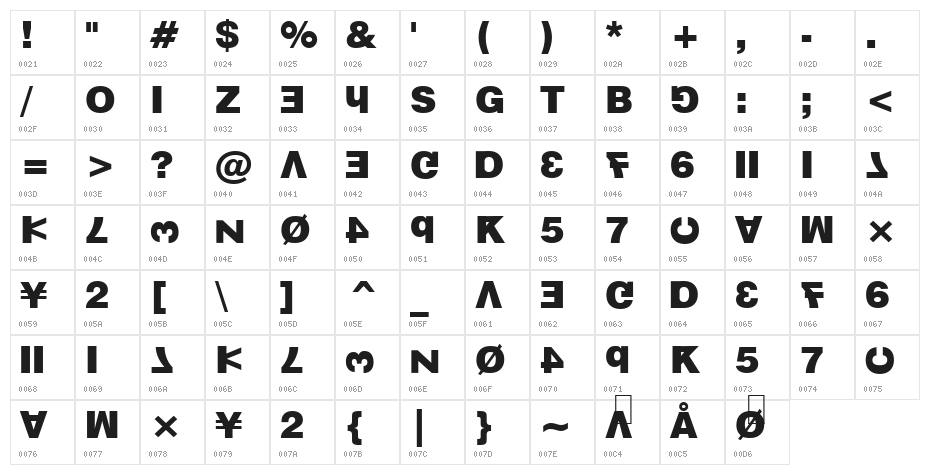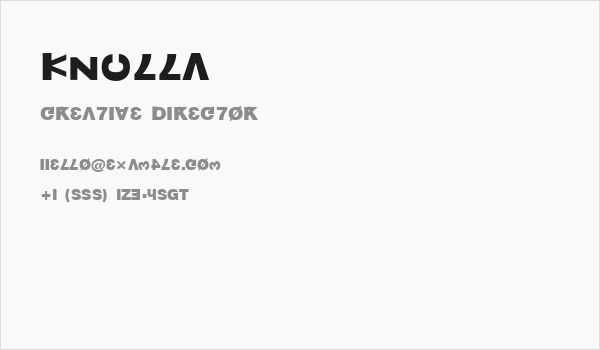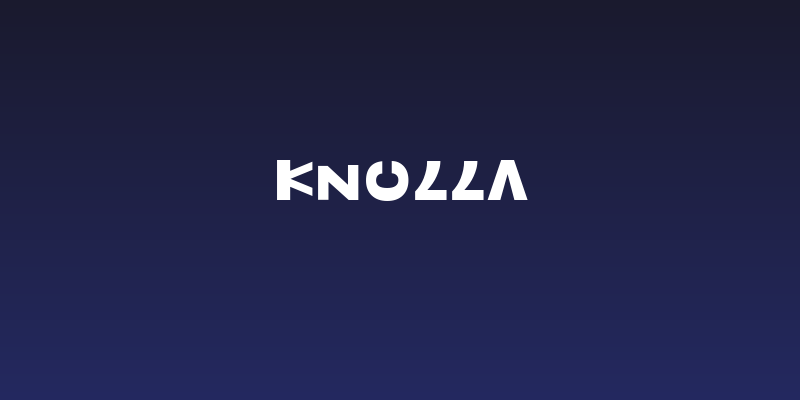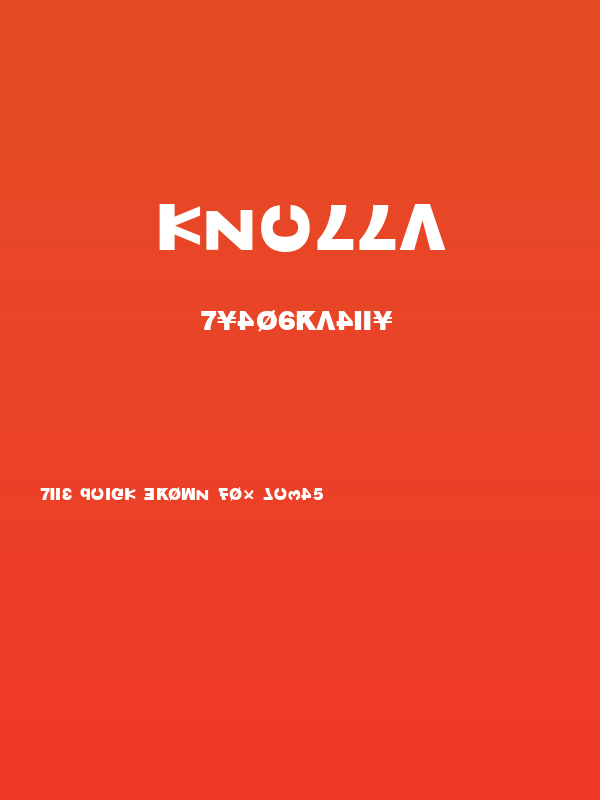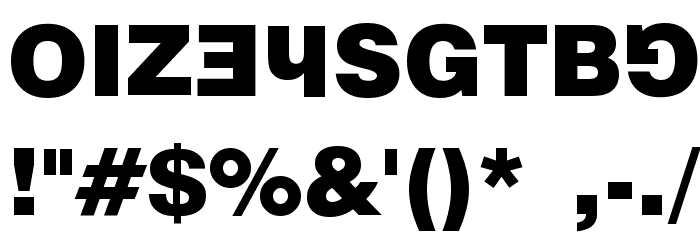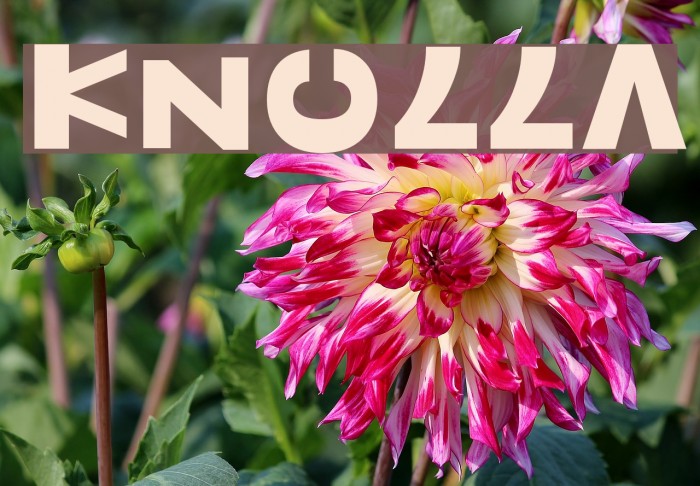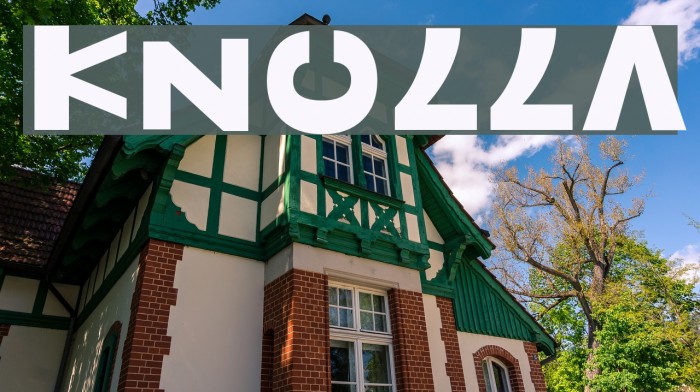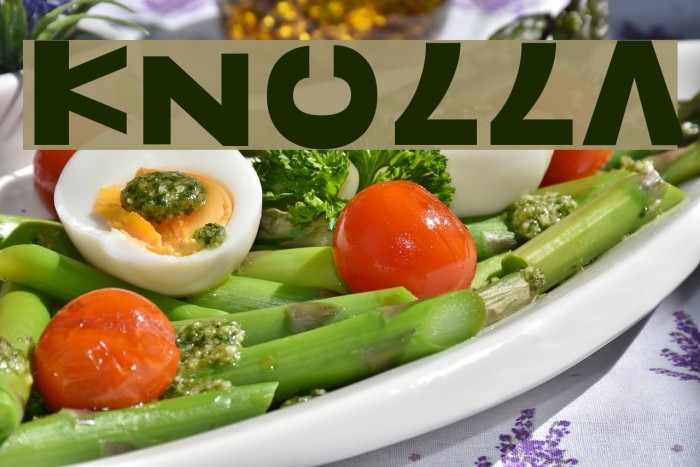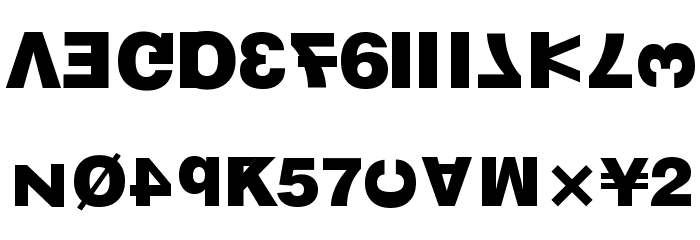
Knulla Font
Knulla Description
This font features a bold and striking design with a reversed and mirrored effect, creating a unique and eye-catching appearance. The characters are heavily stylized, with thick strokes and a strong geometric influence. The uppercase letters are particularly distinctive, with some characters incorporating diagonal lines and unusual shapes. The numbers and special characters maintain this bold style, ensuring consistency across the entire set. This font is designed to stand out and make a statement, making it ideal for creative and unconventional projects.
| Proposed Projects | Ideal for creative projects such as posters, album covers, and branding that require a bold and unconventional look. |